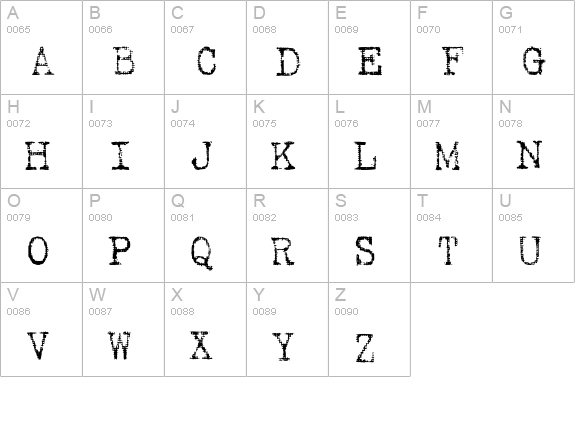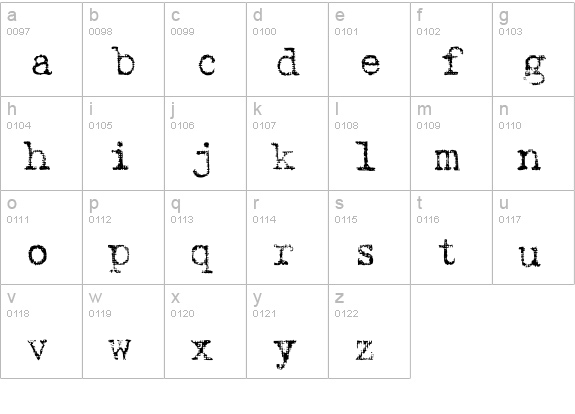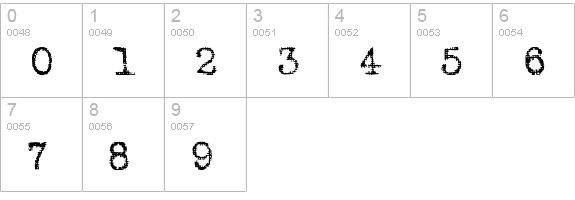
Fucked Olympia J Font Details
Fucked Olympia J font is a unique and eye-catching typeface that exudes a sense of edgy creativity and boldness. Its intricate design features distorted letterforms with a rebellious flair, making it perfect for projects that require a touch of individuality and attitude. The irregular shapes and rough edges of the letters give this font a raw and unapologetic aesthetic that is sure to make a statement. What makes Fucked Olympia J font even more appealing is the fact that it is available for free download at FontsMarket.com. This means that you can easily access this striking typeface and use it in your designs without any cost. Whether you're working on a poster, logo, or branding project, Fucked Olympia J font will add a touch of daring style that sets your work apart from the rest. Download it today and unleash your creativity with this one-of-a-kind font.